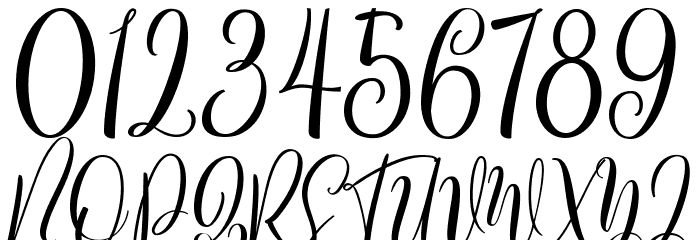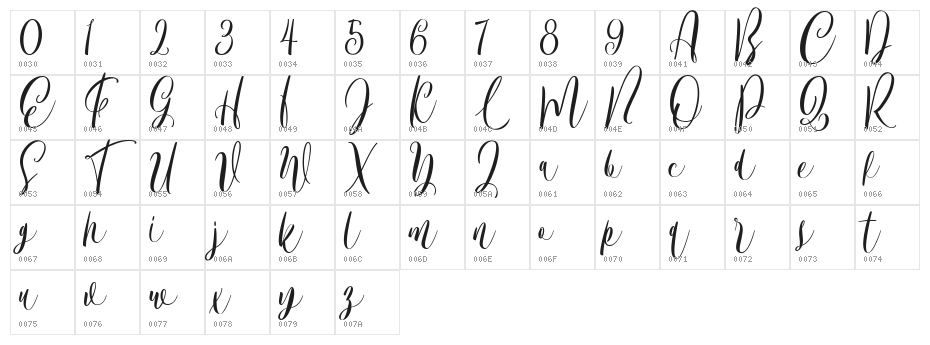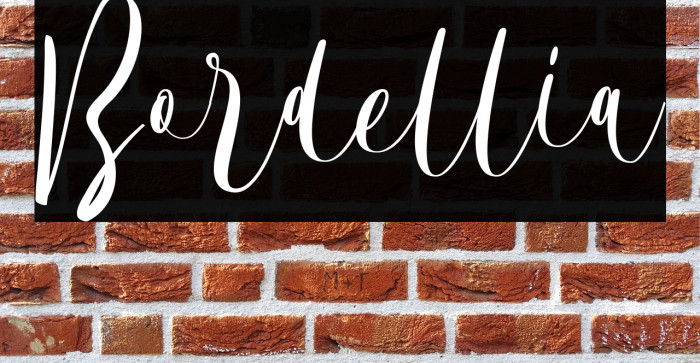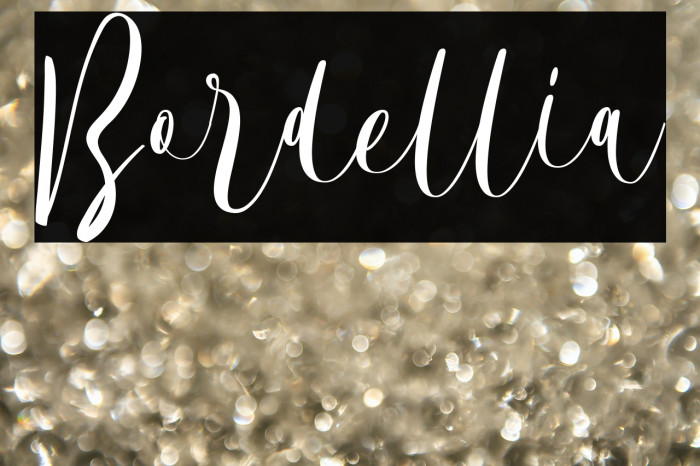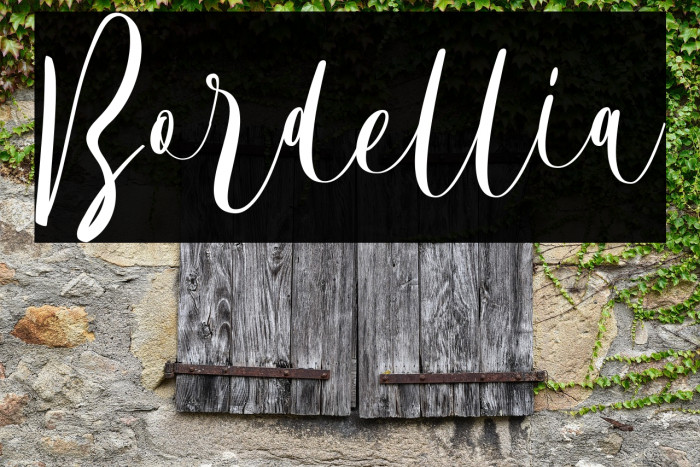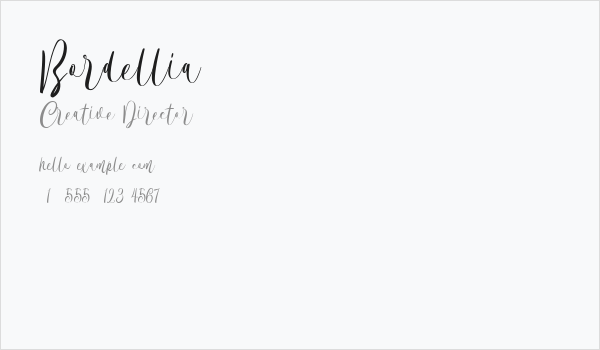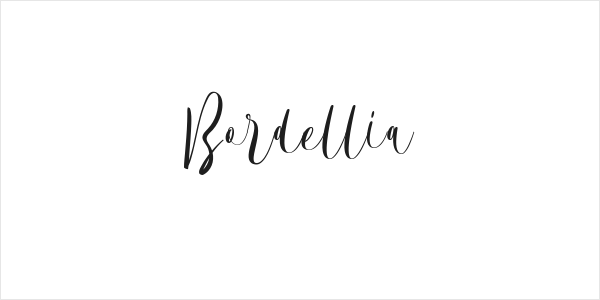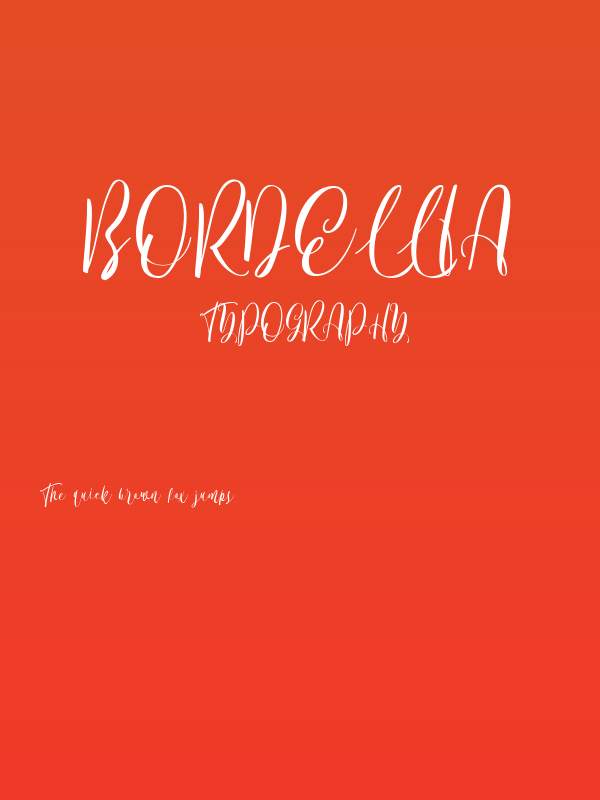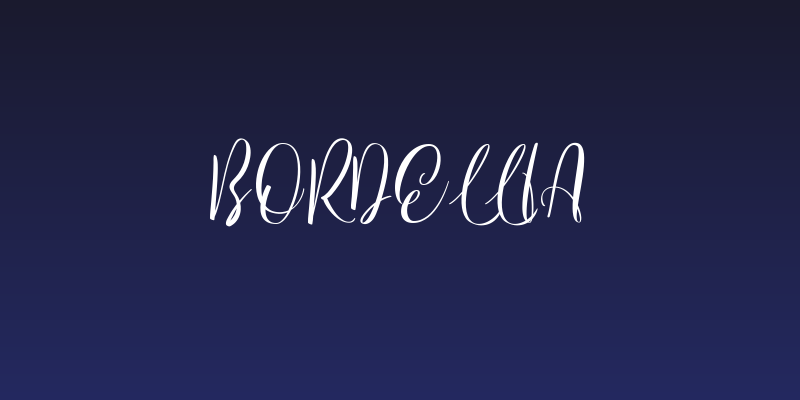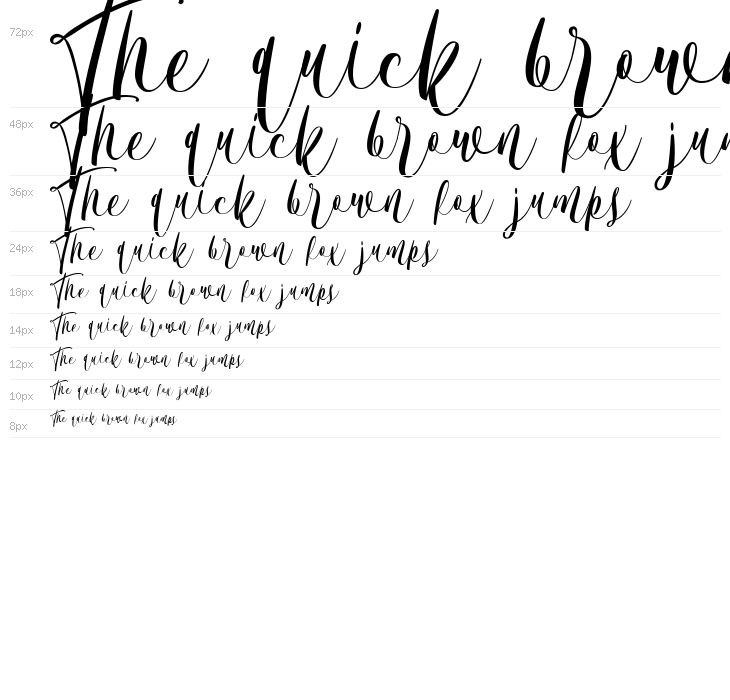
Bordellia Font
Bordellia Description
This font exhibits a flowing, cursive style with an elegant and artistic flair. The characters are connected in a fluid manner, reminiscent of traditional calligraphy, yet with a modern twist. The uppercase letters are bold and expressive, while the lowercase letters maintain a consistent rhythm and grace. The numbers are uniquely styled, with a playful yet sophisticated appearance. Special characters are seamlessly integrated, maintaining the overall aesthetic. The font's design is both decorative and functional, making it suitable for a variety of creative applications.
Use CaseLogos, Invitations, Decorative text
Proposed ProjectsIdeal for wedding invitations, greeting cards, branding, and logo design.